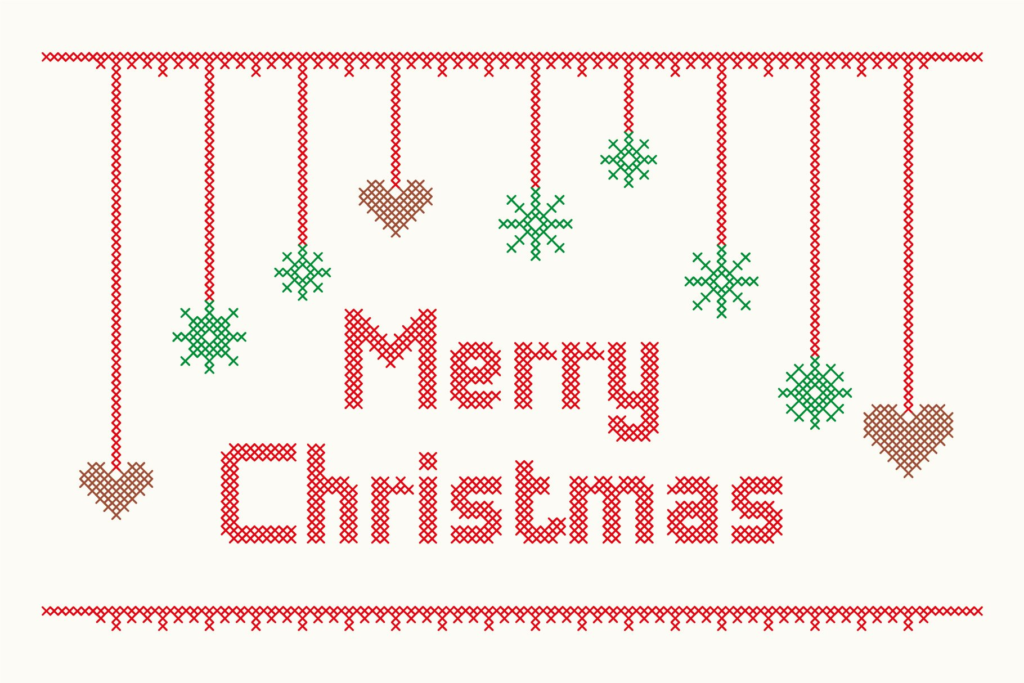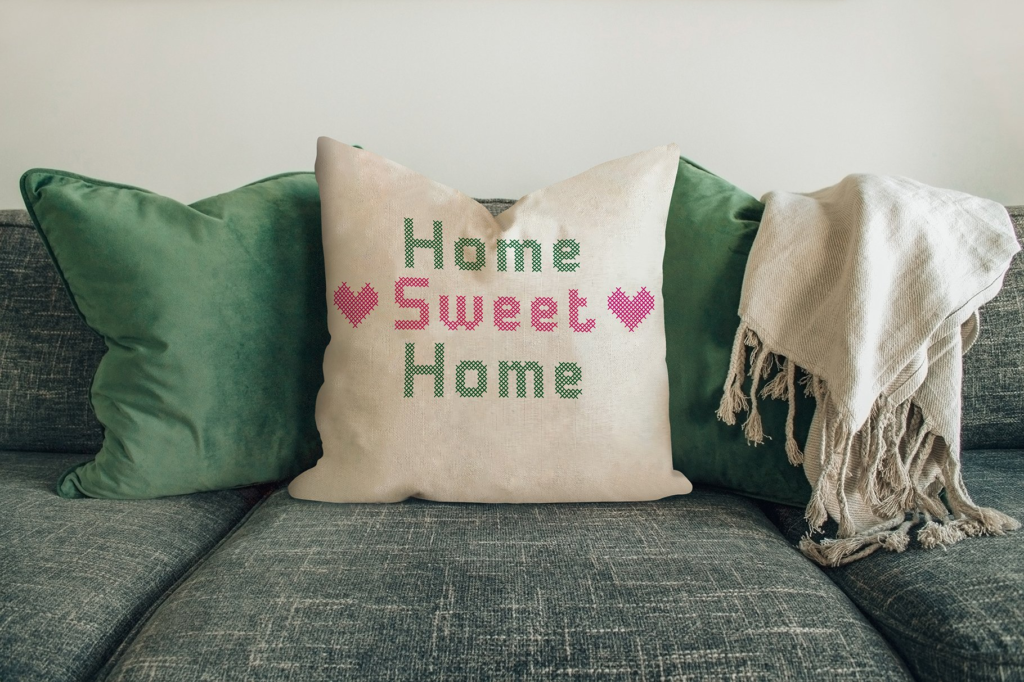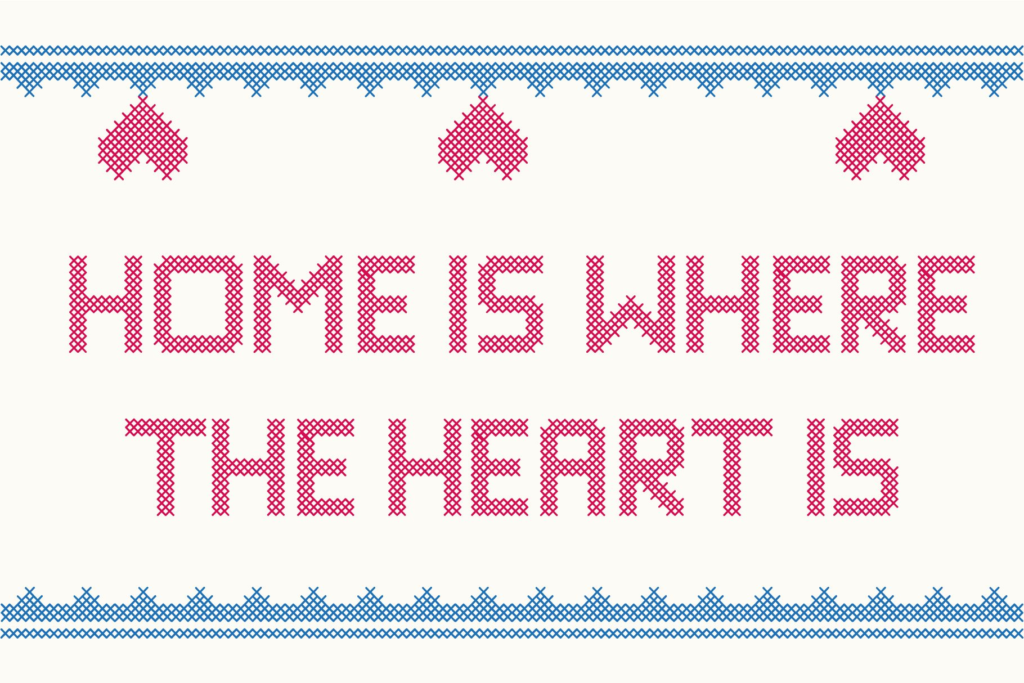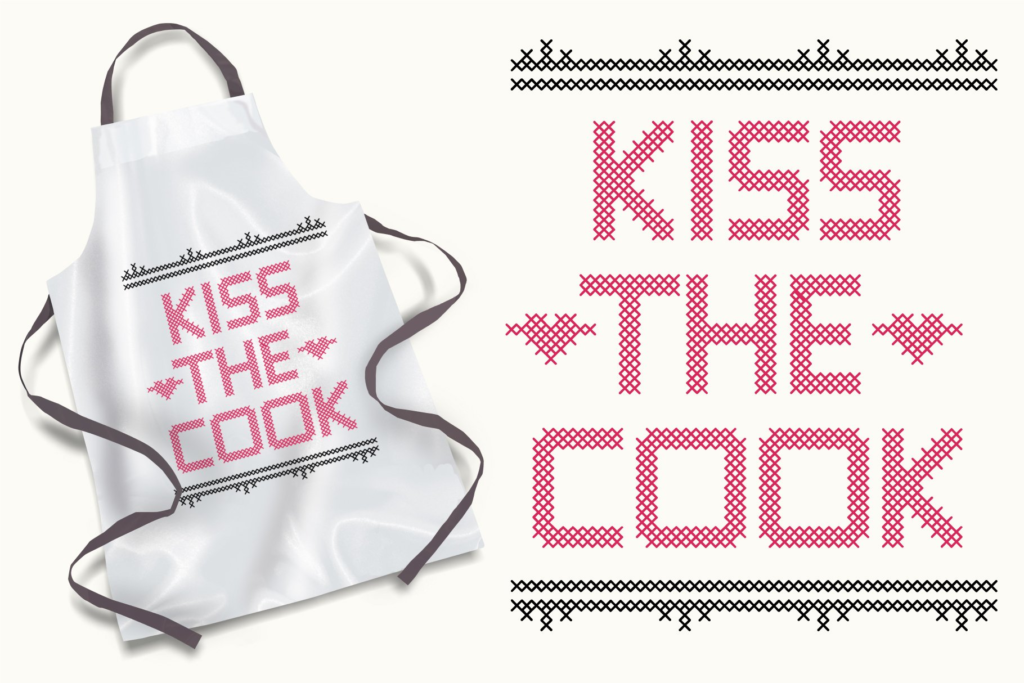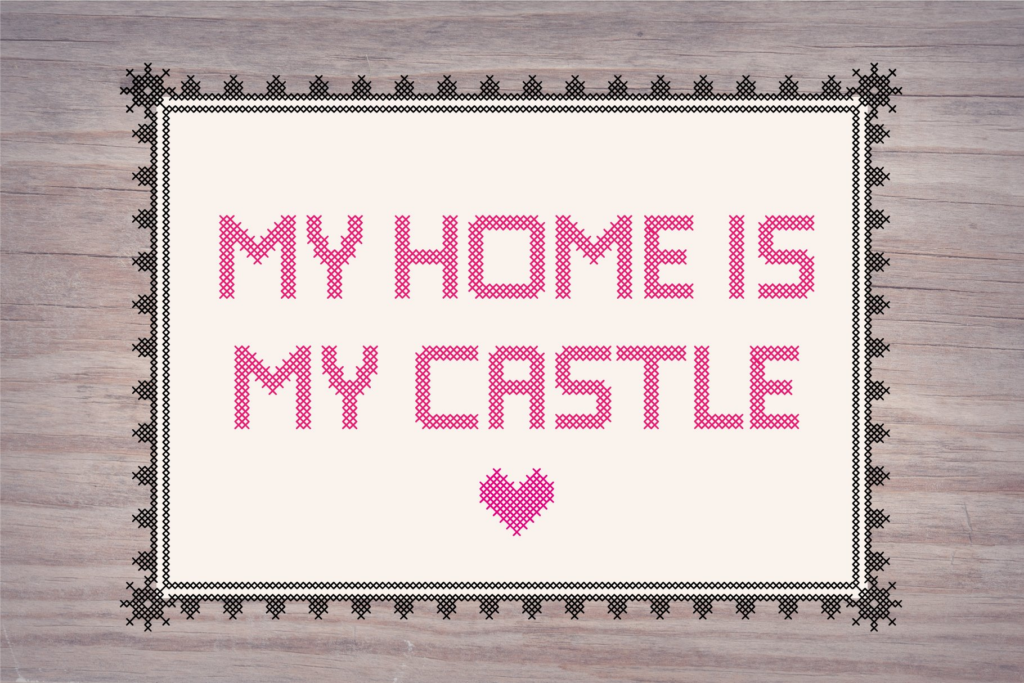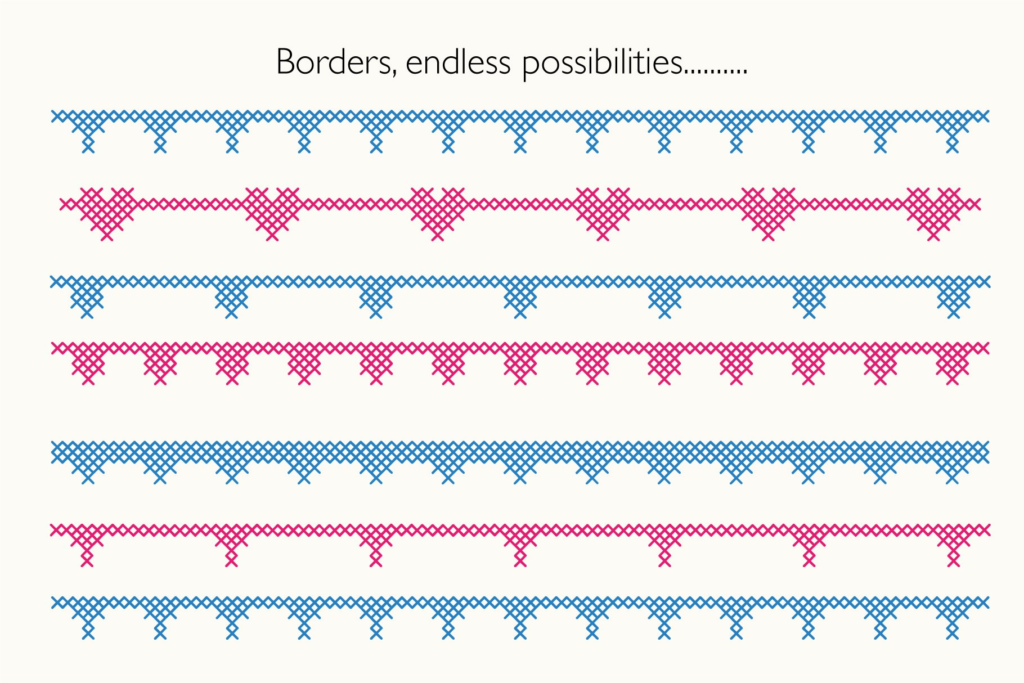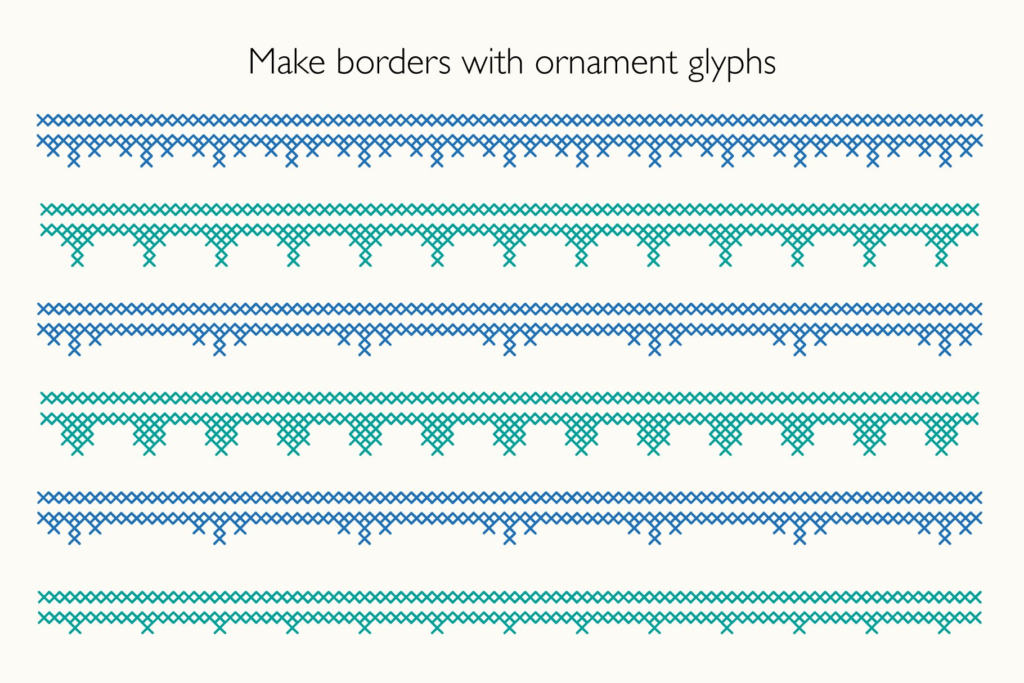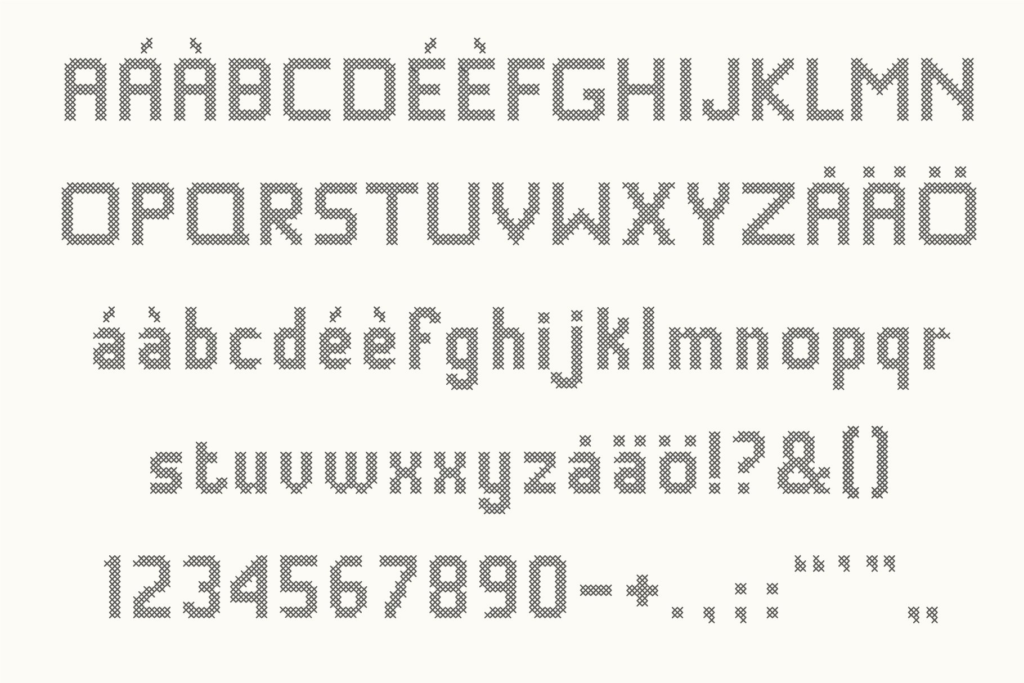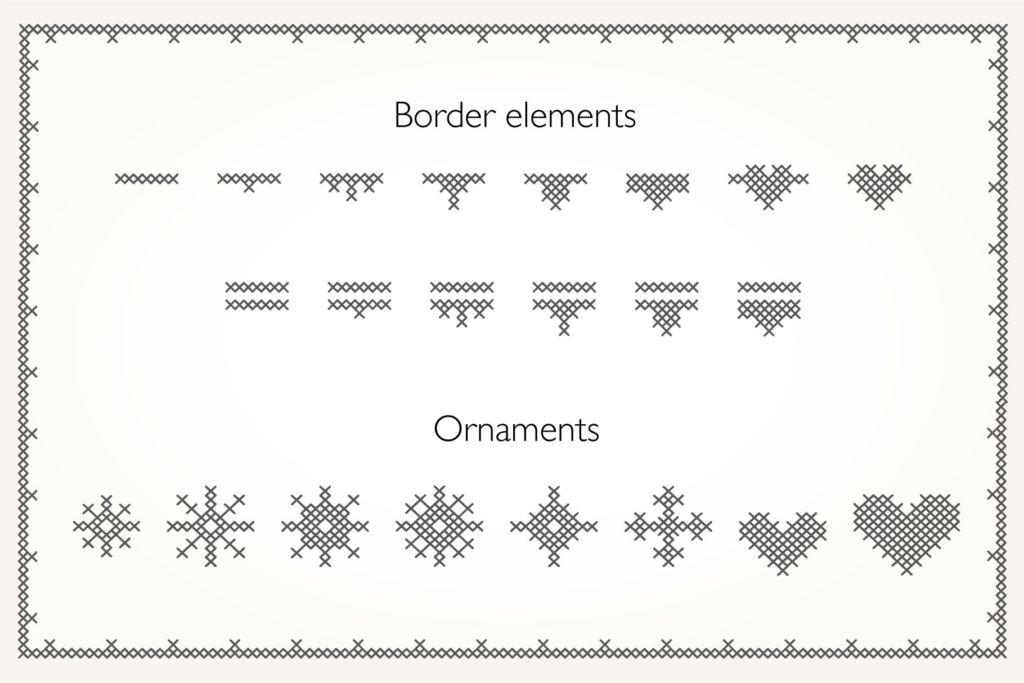
CM Stitching Love A Cross-Stitch Font
Add the warmth and charm of handmade crafts to your designs with this delightful English font inspired by sewing, embroidery, and crochet. The font features clean sans-serif letters accompanied by a rich collection of decorative symbols and marginal elements—including thread spools, needles, yarn balls, stitching patterns, and crochet motifs—that you can combine with the letters in countless creative ways.
This versatile font is perfect for:
- Christmas Projects: Cozy holiday cards and gift tags
- Handwork & Craft Branding: Logos for Etsy shops, yarn stores, and craft businesses
- Handmade Cards: Create personalized, craft-inspired stationery
- Knitting Decorations: Labels for handmade items and craft fairs
- Invitations: Whimsical designs for craft-themed parties
- Scrapbooking: Add crafty typography to memory albums
- Social Media: Warm, handmade aesthetic for craft influencers
The combination of clean, readable letterforms with craft-themed decorative elements allows you to create projects with authentic handmade charm. Whether you’re designing for your own craft business, creating personalized gifts, or adding cozy touches to seasonal projects, this font provides the perfect typographic voice.
Key Features of This Craft Font Collection:
- Complete sans-serif letter set (uppercase, lowercase, numerals, punctuation)
- Extensive decorative symbols and marginal elements (threads, needles, yarn, stitching)
- Craft-inspired design perfect for handmade and cozy projects
- Versatile for Christmas, cards, branding, and craft projects
- Craft business owners and Etsy sellers
- Handmade card and stationery designers
- Knitting and crochet enthusiasts
- Christmas and holiday project creators
- Scrapbookers and memory keepers
- Craft fair and market organizers
- Anyone who loves handmade aesthetics
Stitching Love is the perfect cross-stitch font for your crafty design projects. It is made of sans serif letters and comes with a number of decorative ornaments and border element that you can combine in many different ways. Suitable for christmas, crafting, scrapbooking, embroidery, invitations etc.
– Uppercase Letters A–Ö
– Lowercase Letters a–ö
– Numerals and the most common Punctuation.